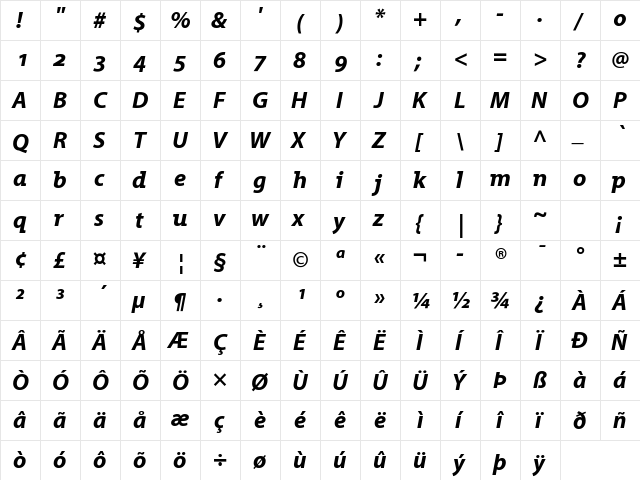
Grandesign Neue Roman Bold Italic Font Preview
Design Context for Grandesign Neue Roman Typeface
Grandesign Neue Roman takes a measured approach to typography — its balanced proportions and neutral character make it a reliable workhorse for both digital and print work. The slanted form adds forward momentum and visual energy. The heavy weight commands attention and anchors typographic hierarchies.
Pro Tip: Try Grandesign Neue Roman for annotation and caption copy alongside an upright companion — the contrast in angle creates a dynamic but ordered typographic system.